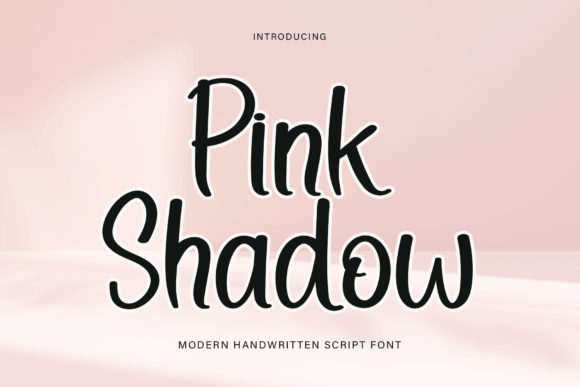
Step into a world of elegance and grace with Pink Shadow Font, a captivating script font that will elevate your designs to new heights. Crafted with meticulous attention to detail, this exquisite font exudes a timeless charm that will leave a lasting impression on your audience.
With its flowing lines and delicate strokes, Pink Shadow Font is a perfect choice for creating stunning office posters that command attention and convey a sense of professionalism. Its versatility knows no bounds, making it an ideal font for a wide range of projects, from formal invitations and certificates to eye-catching social media posts and marketing materials.
Indulge in the beauty of Pink Shadow Font and elevate your designs to the next level. Its timeless style and sophisticated flair will transform your words into works of art, leaving a lasting impression on all who encounter them. Embrace the elegance of Pink Shadow Font and unlock a world of creative possibilities.
Features:
- Elegant script font with a timeless charm
- Perfect for creating stunning office posters
- Versatile font suitable for a wide range of projects
- Ideal for formal invitations, certificates, social media posts, and marketing materials
- Create designs that exude elegance and sophistication
- Make a lasting impression on your audience
- Communicate your message with clarity and impact
- Stand out from the competition with unique and eye-catching designs
- Enhance the overall visual appeal of your projects